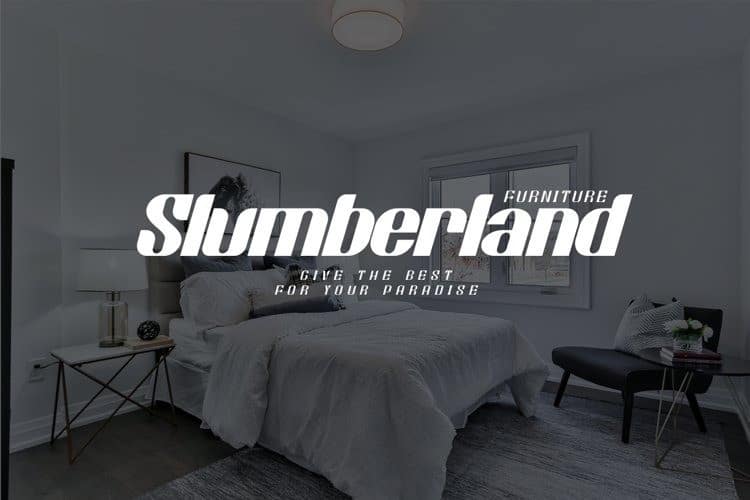
Think Sans Serif Font is a sans-serif display typeface. It is playfully retro, with a modern feel. The typeface is nostalgic of mid-century modern and art deco typography. It’s clean, simple and full of character. Made from typeface designer named embuntype. New typeface that give you new experience during use sans Typeface, classic and futuristic in one typeface with 4 style Regular, Bold, Regular Italic, Bold italic.